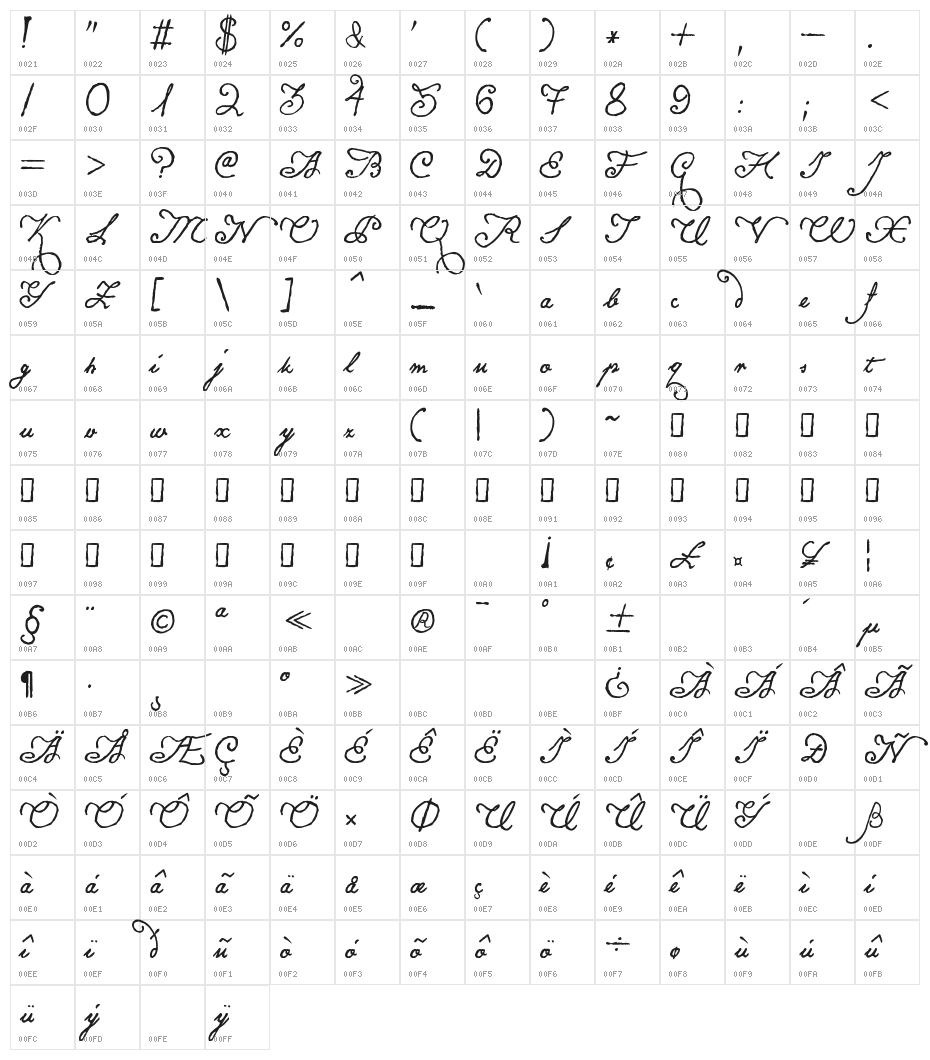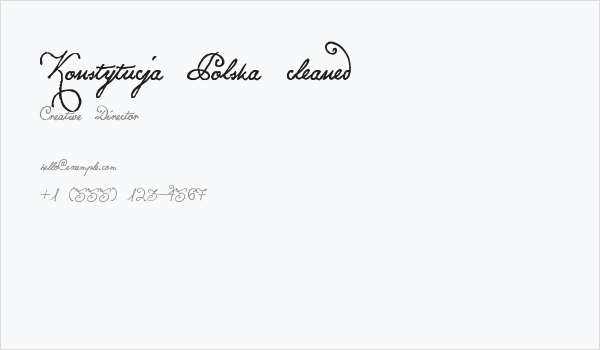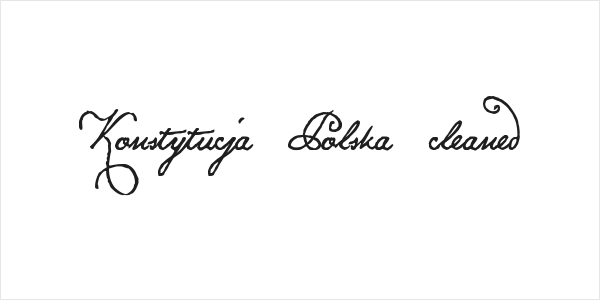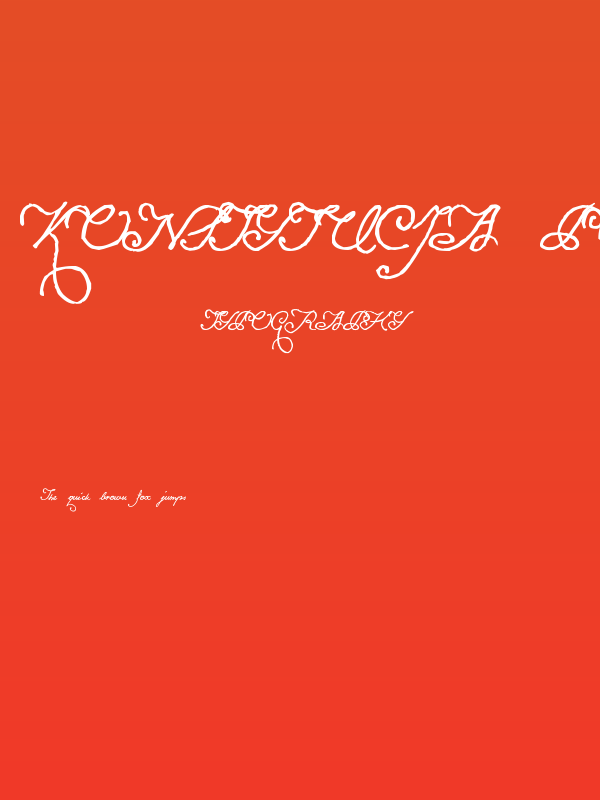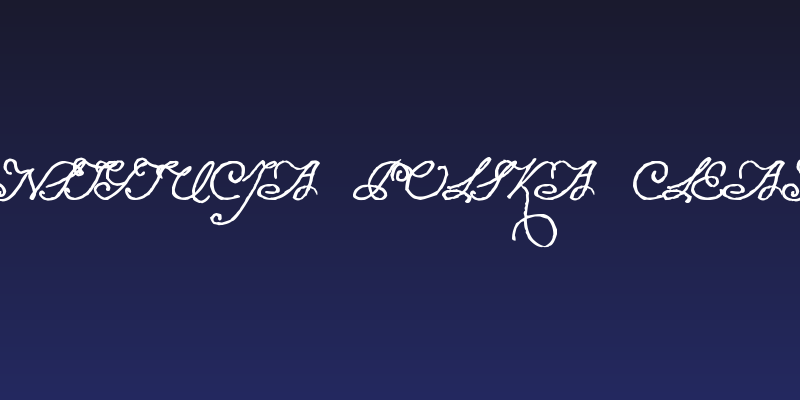
Konstytucja Polska cleaned Font
Konstytucja Polska cleaned Description
This font exudes a classic and elegant script style, characterized by its flowing, cursive letterforms. The uppercase letters are adorned with intricate swirls and flourishes, giving it a decorative and sophisticated appearance. The lowercase letters maintain a consistent cursive style, with smooth connections between each character, enhancing the fluidity of the text. The numerals are uniquely styled, incorporating similar decorative elements as the letters, which adds to the font's cohesive aesthetic. Special characters are also designed with ornate details, making them stand out. This font is ideal for projects that require a touch of elegance and tradition.
| Proposed Projects | Ideal for wedding invitations, formal event programs, elegant branding, and decorative certificates. |